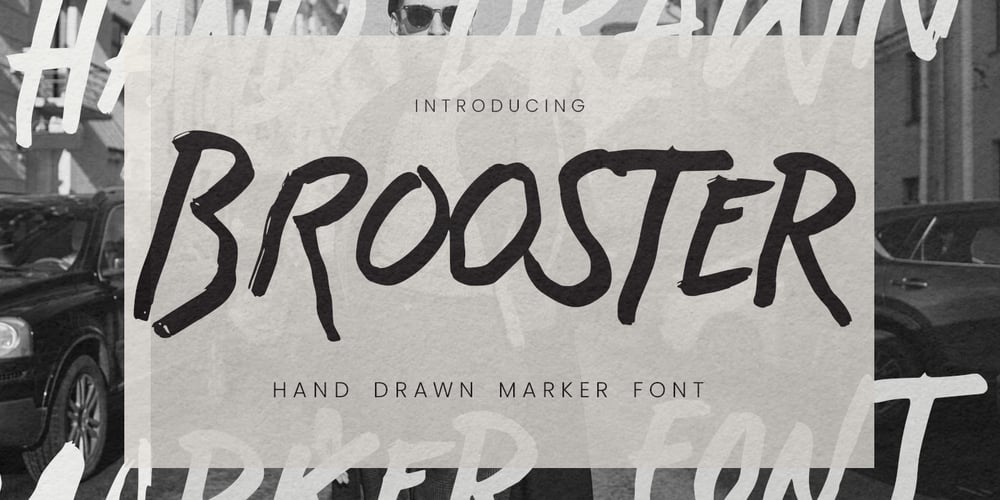
Brooster
Brooster font
Brooster Font Family was designed by Abdul Malik Wisnu, Anang Fibriyanto and published by Gassstype. Brooster contains 1 styles and family package options. Hello Everyone, introduce our new product Font Brooster This Is Hand Drawn Marker Font.This is a Textured Natural Style and classy style with a clear style and dramatic movement.You can activate 12 Ligatures and 35 Alternate glyphs OpenType panel.